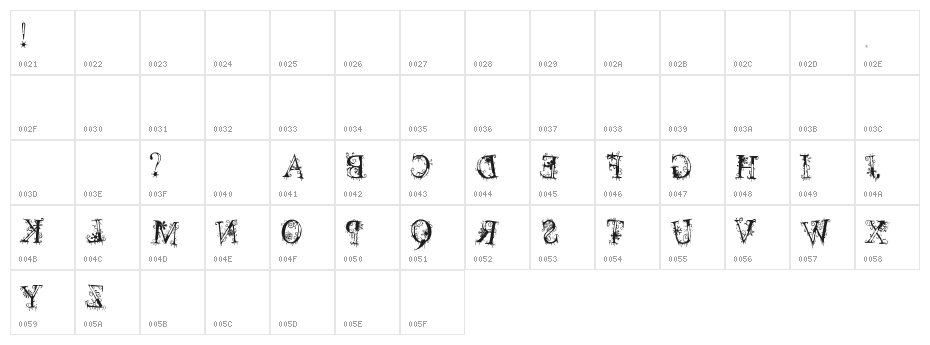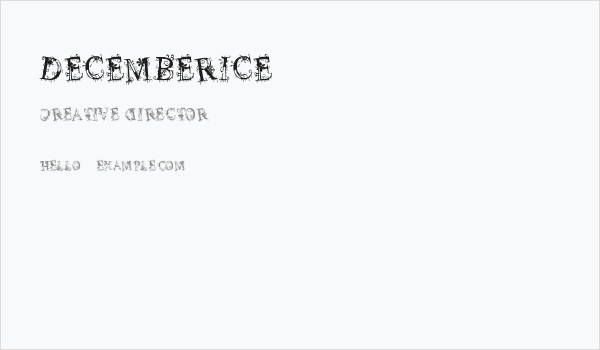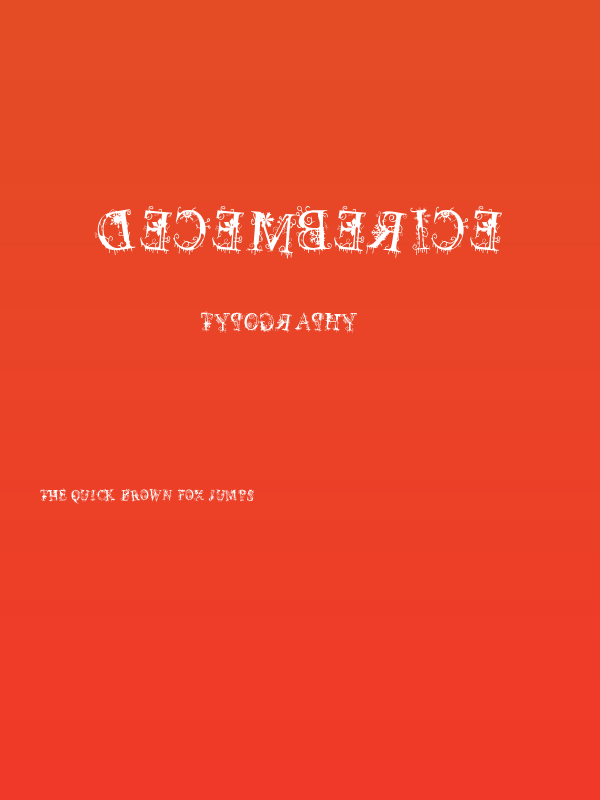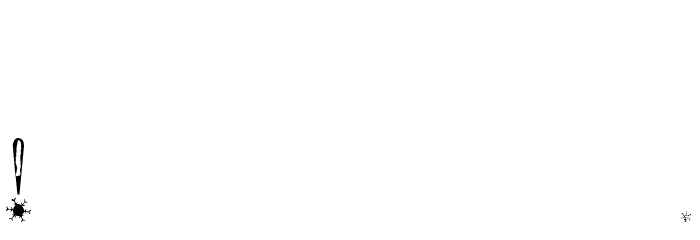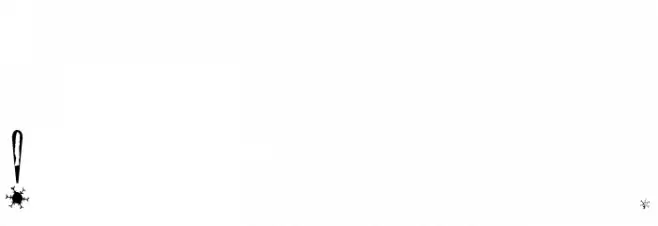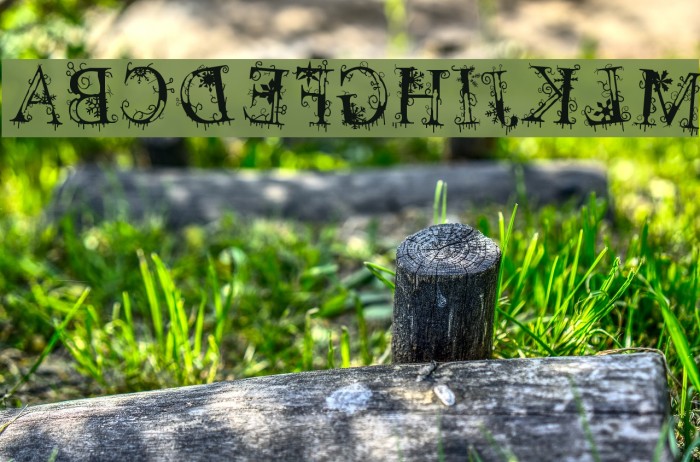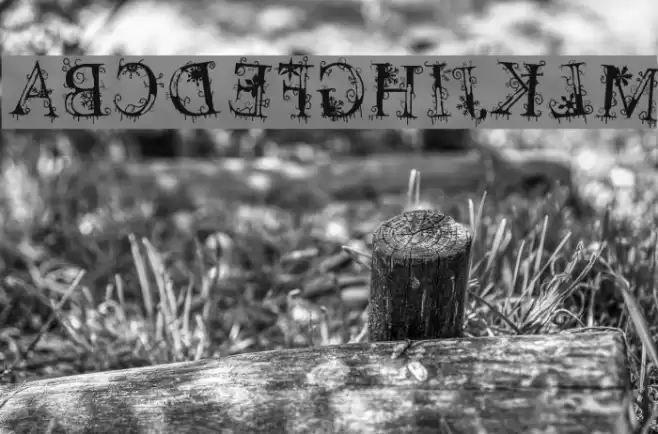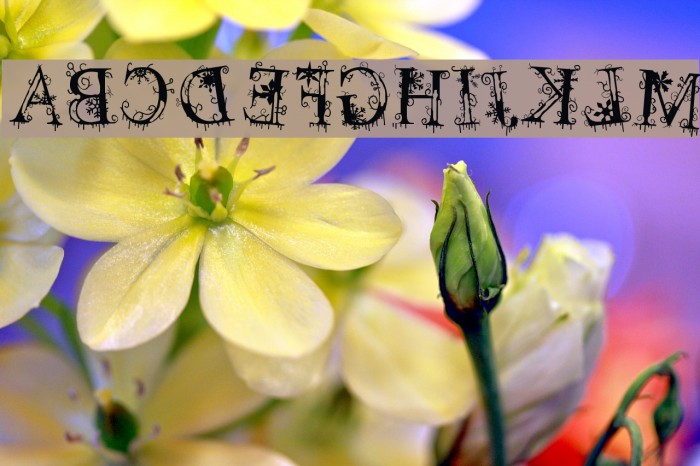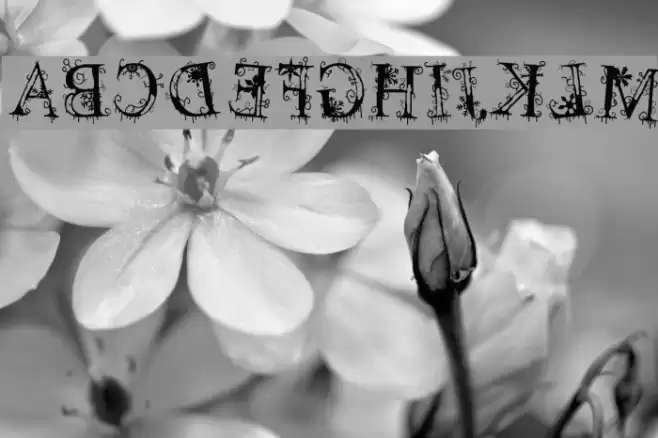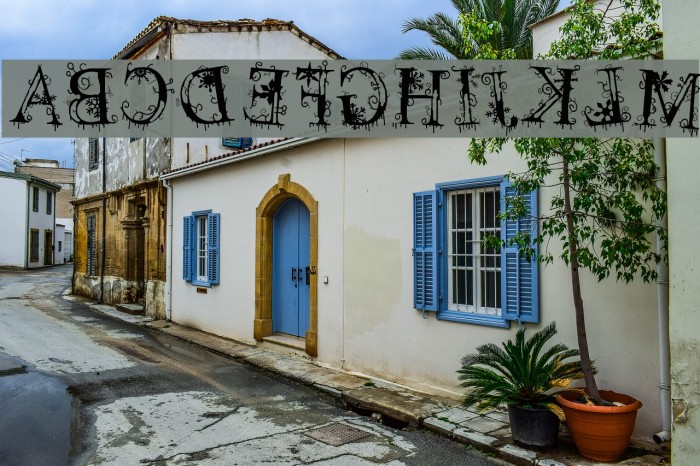
decemberice Font
decemberice Description
This font features a highly decorative and whimsical design, characterized by intricate swirls and flourishes that extend from the main strokes of each letter. The letters have a playful, almost gothic appearance, with elements that resemble vines or tendrils wrapping around the characters. The overall look is both ornate and slightly chaotic, giving it a unique and eye-catching style. The font maintains a consistent weight throughout, with medium contrast between thick and thin strokes. Its elaborate design makes it suitable for creative and artistic projects where a bold statement is desired.
| Use Case | Logos, Posters, Event Invitations |
| Proposed Projects | Ideal for Halloween-themed designs, fantasy book covers, event invitations, or any project requiring a dramatic and artistic flair. |